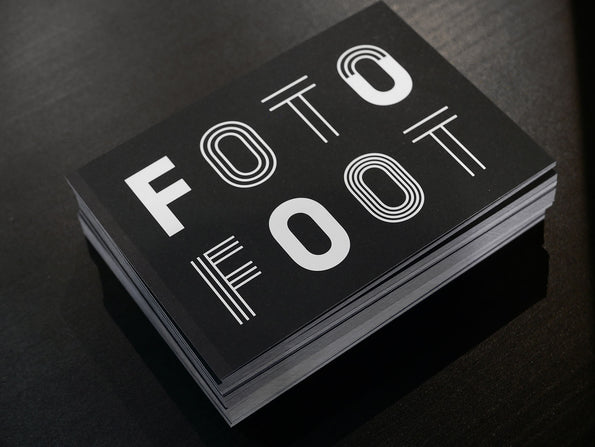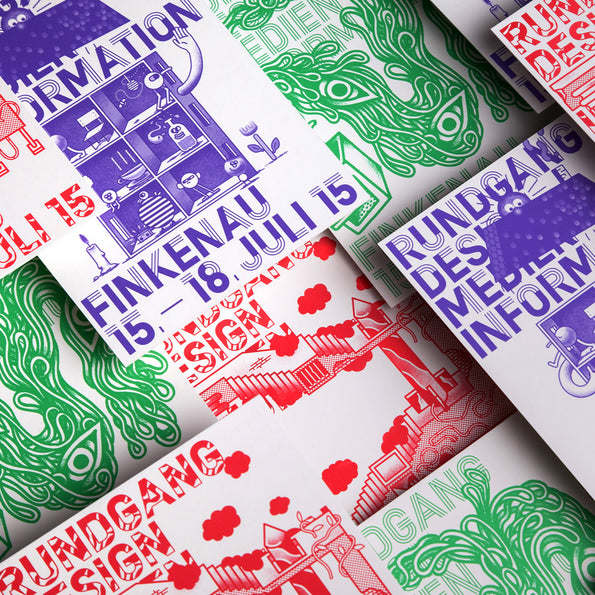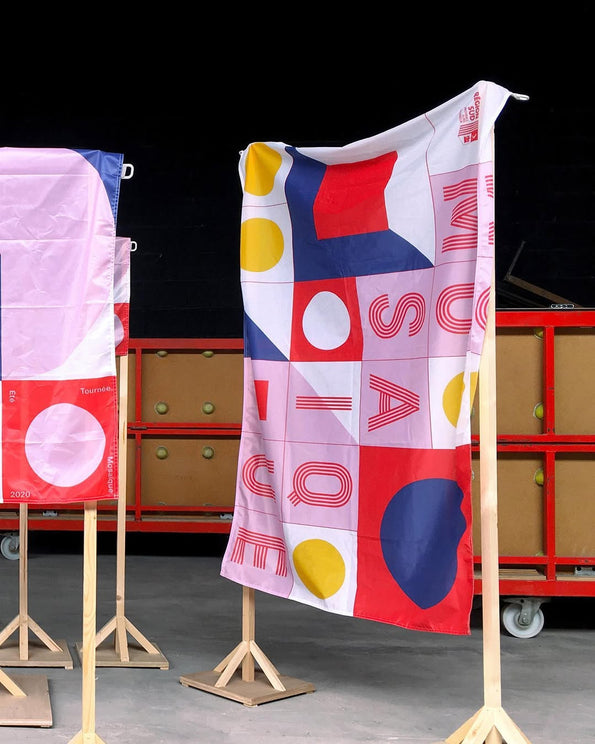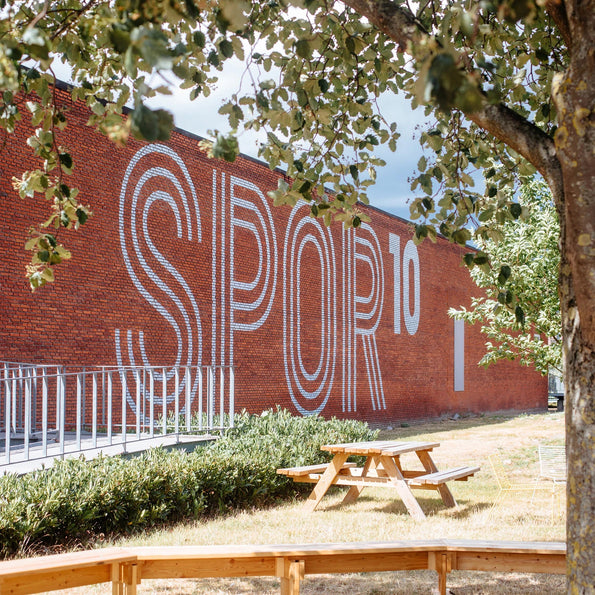
Parade Family
Same structure, different vibes.
between Bauhaus
and Fisher-Price”
Features
Stylistic set 1
Stylistic set 2
Stylistic set 3
Stylistic set 4
Tabular numbers
Superior
Arrows and Pictograms
Launched in 2013 for the festival Design Parade 8’s branding at the Villa Noailles, Parade is a collection of 10 identically drawn typefaces with style and pattern variations.
This all caps family offers a large range of “mix & match” potentials for titling, posters or brand identities. Have fun, and create your “Parade” cocktail !
Design
Romain Oudin
Release
2014 (Update 2020)